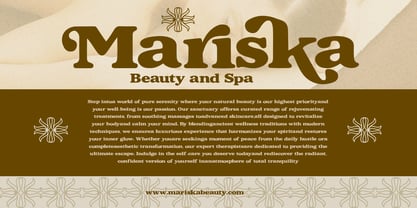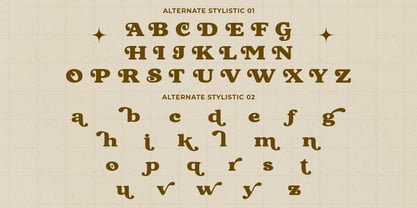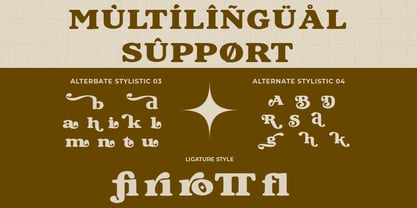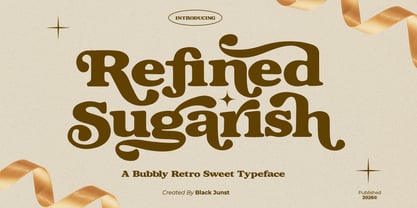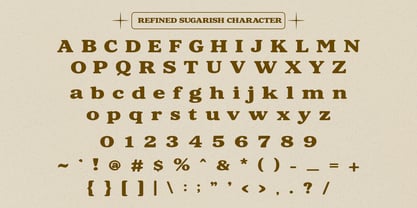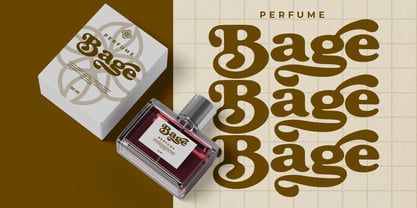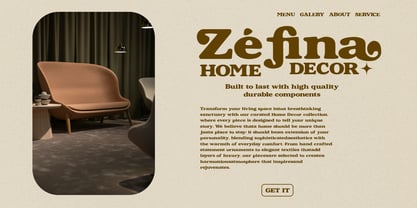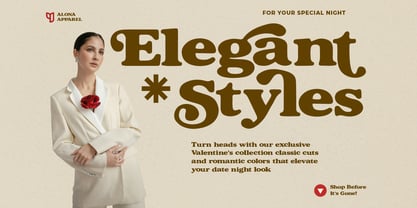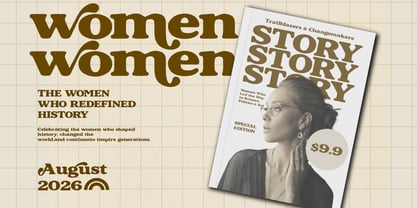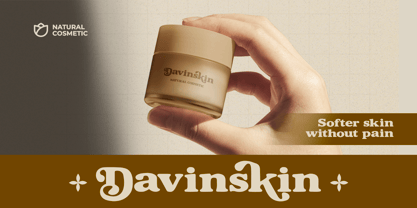
Refined Sugarish
The Refined Sugarish Font Family was designed by Maulana Semar and published by Black Junst. Refined Sugarish contains 1 styles. More about this family
Refined Sugarish is a retro-inspired font that captures the bold, bubbly, and nostalgic essence of the 1970s. This groovy display typeface showcases rounded serif details and smooth curves, creating a strong headline presence that instantly attracts attention. With its playful yet premium character, Refined Sugarish is ideal for branding, packaging, and impactful statement typography. The bold letterforms ensure high readability in larger sizes, while the soft curves infuse warmth and charm into every design. Perfect for projects that seek to evoke a sense of retro flair, this font brings a unique touch to any creative endeavor.